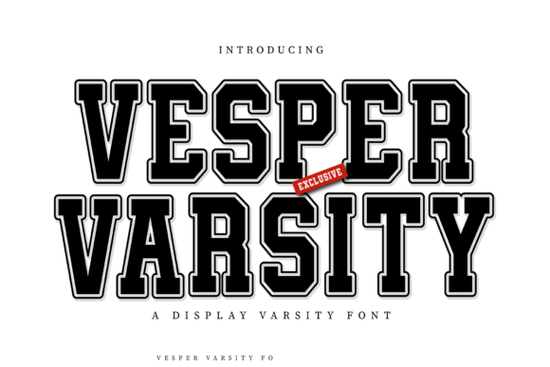
When you need to capture the spirit of game day or school pride, the right typography does most of the heavy lifting. The Vesper Varsity Font brings that classic stadium energy to your projects without looking dated. It is a strong, retro collegiate typeface designed specifically for athletic and school-related graphics. Whether you are a print-on-demand seller creating team merch or a hobbyist making custom decals, this font gives your text a confident, championship-ready feel. It is also fully equipped for commercial use, giving small business owners peace of mind when creating items for their shops.
What makes a collegiate typeface work for sports designs?
A good sports font needs to be readable from a distance while still holding a lot of character. This specific typeface achieves that balance through bold block shapes and clean-cut corners. The sporty outline look ensures that the text pops, even when placed over busy backgrounds or photographic elements. If you are currently browsing through different slab serif typefaces for your next project, you will notice how the sharp, structured edges of this font make it stand out from softer, more rounded alternatives.
How can crafters and POD sellers use this typeface?
The versatility of this font makes it a staple for anyone creating physical or digital sports merchandise. Because the letterforms are thick and well-spaced, they translate beautifully across various mediums. You can use it for large-scale signage or tiny details on a custom patch.
Here are some of the most practical ways to apply it in your shop or studio:
- Apparel and Uniforms: Create authentic-looking player numbers, team names, and senior graduation shirts.
- Cutting Machines: The clean edges make it highly compatible with Cricut and Silhouette projects for vinyl decals.
- Branding Elements: Design team logos, monograms, badges, and emblems that need a traditional athletic vibe.
- Event Graphics: Add a spirited touch to pep rally flyers, tournament brackets, and social media announcements.
Is it easy to cut and print for physical products?
One of the biggest concerns for crafters working with heat transfer vinyl or sublimation is how well a font weeds and presses. The sharp corners and solid blocks of this design mean there are no fragile, thin lines that will tear during the weeding process. This means less frustration when you are working on intricate multi-layer designs for cheerleading uniforms or marching band jackets. When you download the Vesper Varsity Font from Creative Fabrica, you get a file that is optimized for both digital editing and physical crafting. The spacing is generous enough to allow for easy layering if you want to add a contrasting outline or shadow effect to your hoodies and t-shirts.
What are the best practices for pairing this font with other elements?
While this typeface is highly decorative on its own, pairing it correctly will keep your designs looking professional rather than cluttered. Since the letters are so bold and commanding, they pair best with simpler, understated fonts for your secondary text.
Try using a clean, geometric sans-serif for the smaller details like dates, locations, or player positions. You can also use the outline version of the letters to create a double-layered effect on dark-colored garments. If you want to add a bit of motion to a basketball or baseball design, a flowing script font for a single accent word can create a nice contrast against the rigid, blocky varsity letters. Just remember to keep the hierarchy clear so the main team name remains the focal point.
Quick design checklist for your next sports project
Before you send your final file to the printer or load your cutting mat, run through this quick checklist to ensure your design looks its best:
- Check your contrast: Make sure the font color stands out clearly against your garment or background color.
- Test the spacing: Adjust the kerning if the letters feel too cramped, especially on curved surfaces like hat brims.
- Verify the cut lines: If using a cutting machine, do a small test cut on scrap vinyl to ensure the corners weed cleanly.
- Keep it readable: Avoid adding too many extra effects or drop shadows that might muddy the clean block shapes.
Take a few minutes to preview your design at actual size on a mockup. This simple step will save you time and materials when it is time to produce the final item.